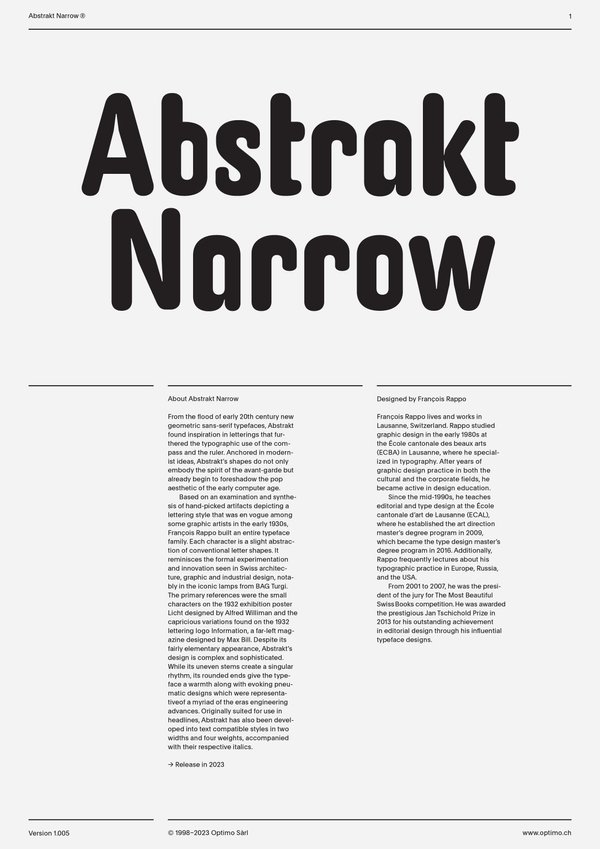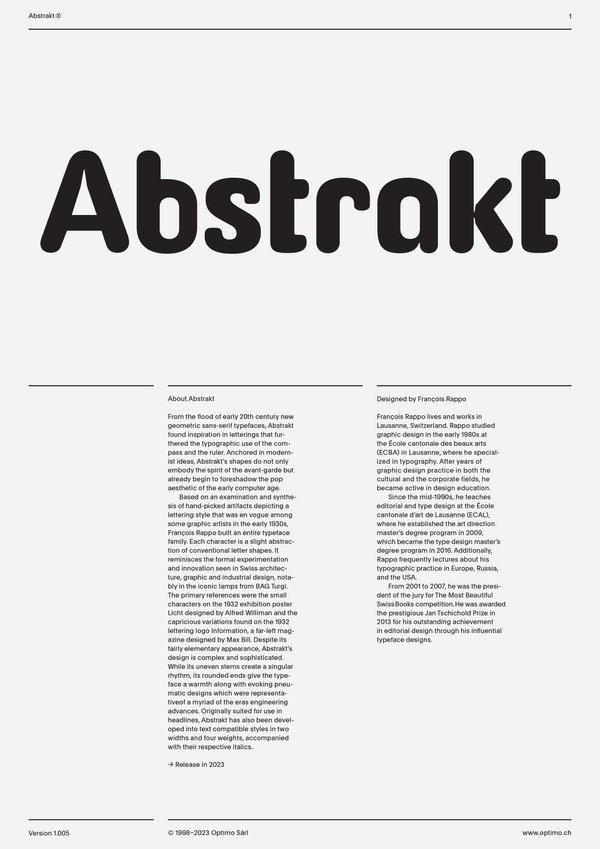
Abstrakt Narrow
Abstrakt
Case Sensitive Forms
All Caps [cpsp]
Case Sensitive Forms [case]
This function formats the text in uppercase and adjusts spacing between all capital letters. It also applies the ‘Case Sensitive Forms’ feature which replaces certain characters with alternates that are better suited for all capital text, especially related to punctuation.
Contextual Alternates
Contextual Alternates [calt]
This feature adapts the position of a glyph after its surrounding context. For instance, a dash placed between two uppercase letters or numbers will be replaced by an uppercase version of the dash, slightly higher. This feature is usually active by default in Adobe applications.
Alternate a
Stylistic Set 1 [ss01]
This feature replaces glyph(s) with stylistic alternate(s).
Alternate fi fl
Stylistics Set 2 [ss02]
This feature replaces glyph(s) with stylistic alternate(s).
Tabular Lining Figures
Tabular Lining Figures [tnum–lnum]
Based on the proportions of the capitals, lining figures have an invariable height. With the combination of the tabular spacing format, the width of each numeral is uniformized. This feature is useful when numerals need to all lined up. It facilitates the reading of numbers set within columns or tables. As some applications don’t have access to this feature, proportional figures are set as the default choice.
Fractions
With this feature, any numbers separated by a slash will automatically turn into a fraction. To fit in fraction configuration, numerals have been designed smaller and their weights have been adjusted to suit the typeface.
Lowercase math symbols
Stylistic Set 6 [ss06]
This feature activates alternate lowercase positioning of mathematical symbols.
This feature replaces any letter following a numeral with its matching superior letters. French language uses the ordinal indicators such as ‘er’ for 1er premier, while Spanish, Portuguese and Italian require the feminine and masculine ordinals ‘a,’ ‘o’ for 1º, 1ª. Ordinals are designed to match the weight of the typeface.
Slashed Zero
Slashed Zero [zero]
Originally created to avoid the confusion between the ‘0’ and the ‘O’, this feature substitutes all zeros in a selected text by a slashed form of the zero.
Multiply sign
Stylistic Set 20 [ss20]
This feature substitutes the letter “x” into the multiplication sign.
Numerators [numr]
This feature substitutes glyphs with their matching smaller alternates. The numerators are the same glyphs that are used to create fractions, their vertical position remains within the capital letters height. These glyphs are reduced in size and designed slightly heavier to keep them consistent with the rest of the font.
This feature substitutes glyphs with their matching smaller alternates and low position glyphs. The denominators are the same glyphs that are used to create fractions, their vertical position remains within the base line. These glyphs are reduced in size and designed slightly heavier to keep them consistent with the rest of the font.
Superscript/Superiors
This feature substitutes glyphs with their matching smaller alternates which are set slightly above the height of the capital letters. These glyphs are reduced in size and designed slightly heavier to keep them consistent with the rest of the font.
Subscript/Inferiors
Subscript / Inferiors [subs]
This feature substitutes glyphs with their matching smaller alternates which are set slightly below the baseline. These glyphs are reduced in size and designed slightly heavier to keep them consistent with the rest of the font.
Discretionary Ligatures
Discretionary Ligatures [dlig]
This feature activates discretionary ligatures which are specific to the typeface. It applies all other designed ligatures that are not classified as standard ligatures.
Based on an examination and synthesis of hand-picked artifacts depicting a lettering style that was en vogue among some graphic artists in the early 1930s, François Rappo built an entire typeface family. Each character is a slight abstraction of conventional letter shapes. It reminisces the formal experimentation and innovation seen in Swiss architecture, graphic and industrial design, notably in the iconic lamps from BAG Turgi. The primary references were the small characters on the 1932 exhibition poster Licht designed by Alfred Williman and the capricious variations found on the 1932 lettering logo Information, a far-left magazine designed by Max Bill. Despite its fairly elementary appearance, Abstrakt’s design is complex and sophisticated. While its uneven stems create a singular rhythm, its rounded ends give the typeface a warmth along with evoking pneumatic designs which were representative of a myriad of the eras engineering advances. Originally suited for use in headlines, Abstrakt has also been developed into text-compatible styles in two widths and four weights, accompanied with their respective italics.